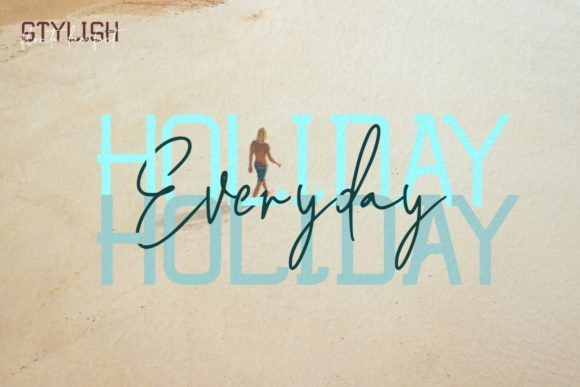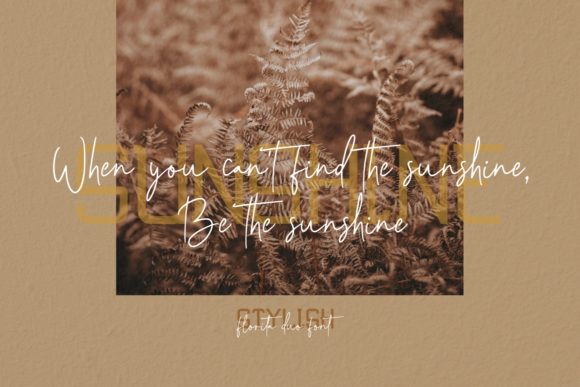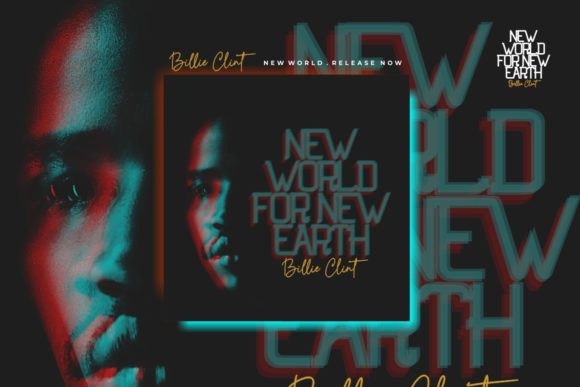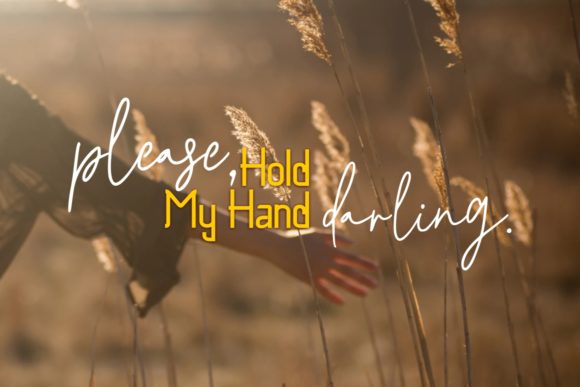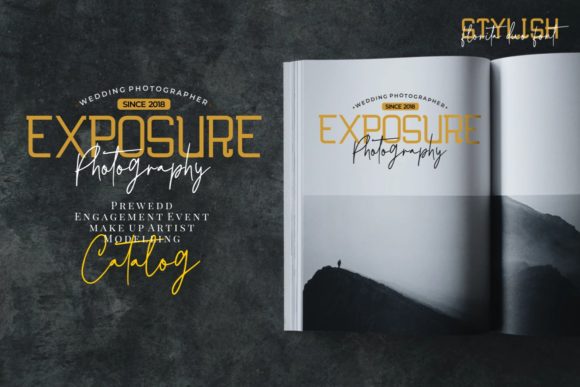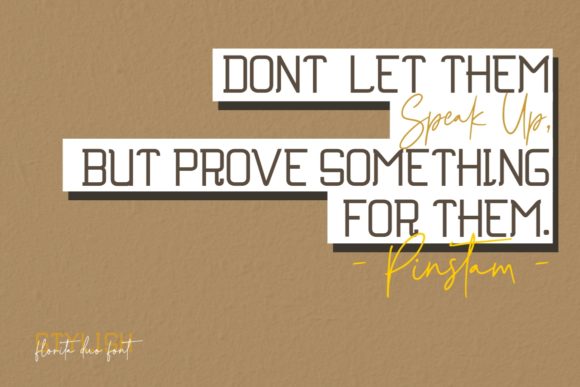
Introduction to Florita Duo Font
Florita is a charming font duo that combines a sweet script and bold sans serif font.
Get inspired by these two classic fonts .
Key Features of Florita Duo Font